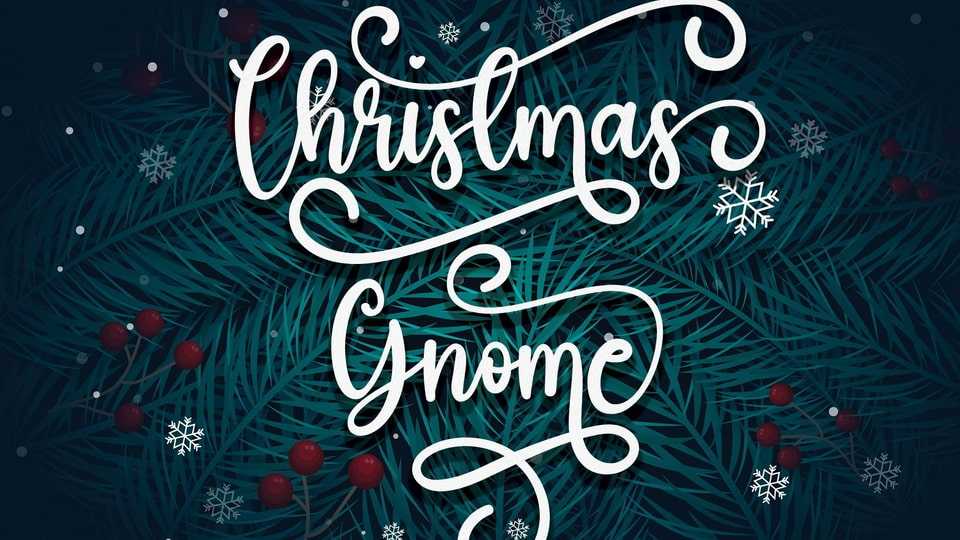
Download Christmas Gnome font, a soft and delightful handwritten script typeface. Modern and elegant, Christmas Gnome font is made of beautiful creative strokes.